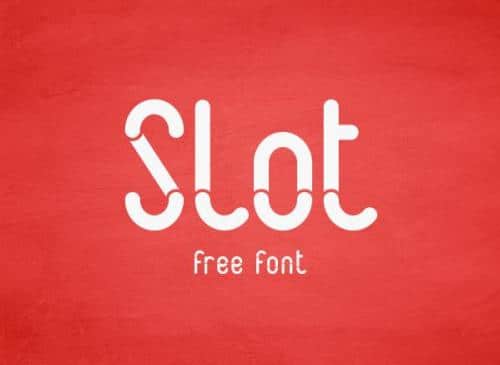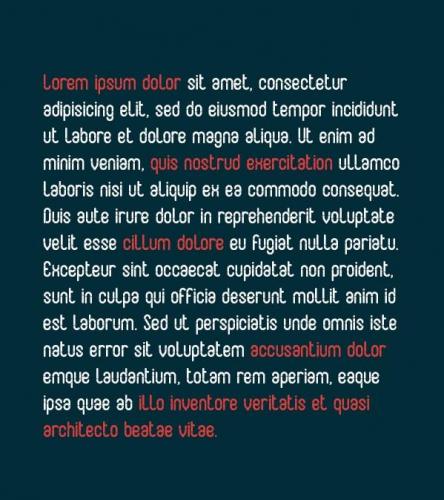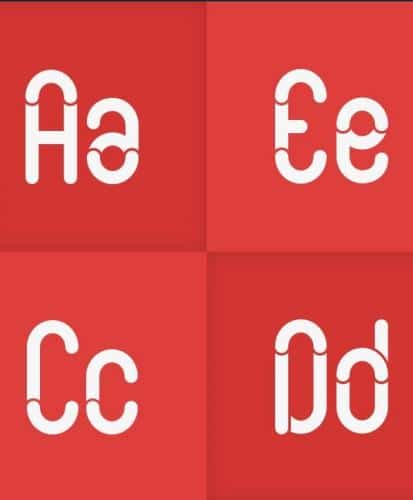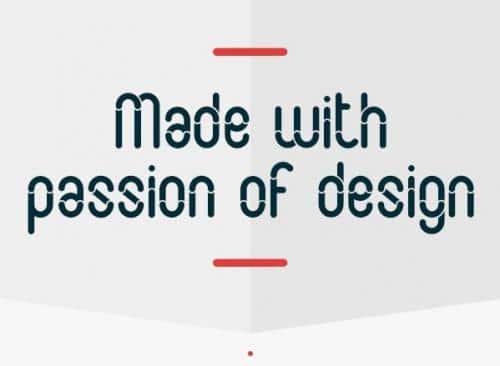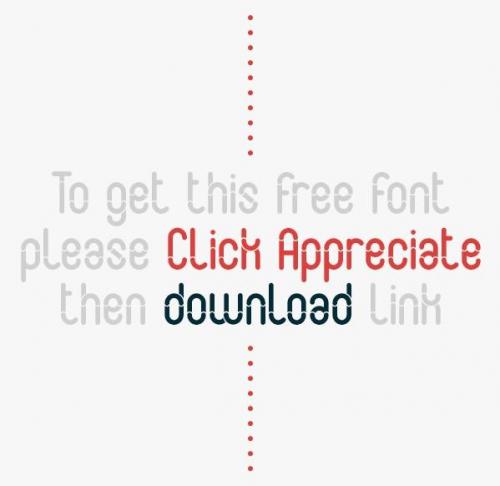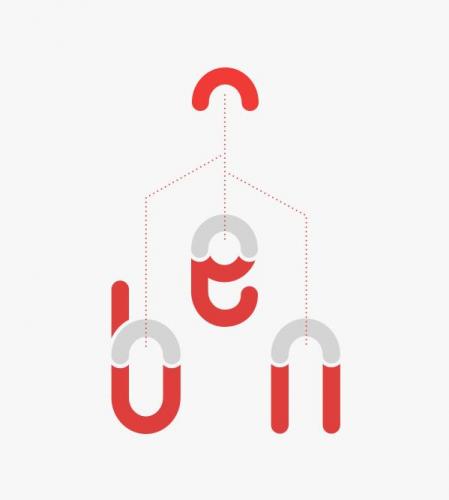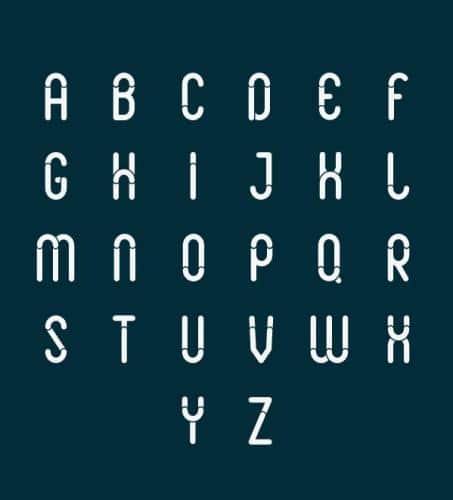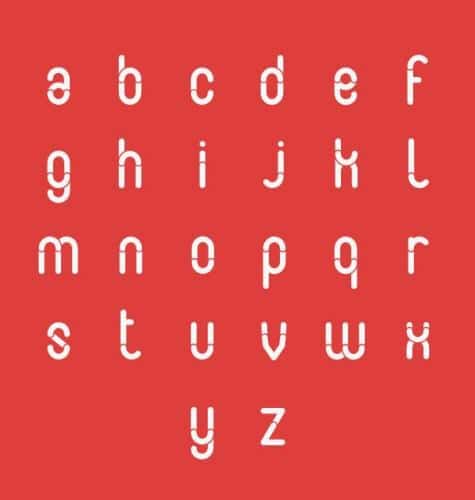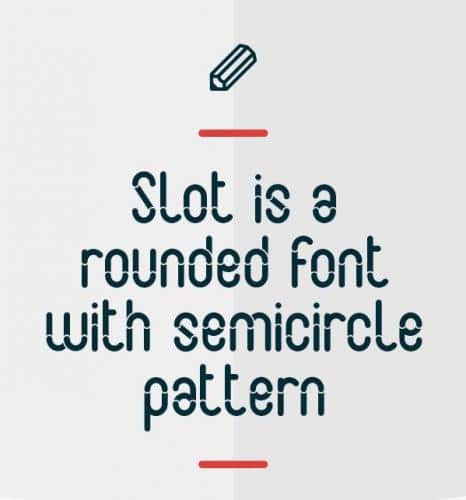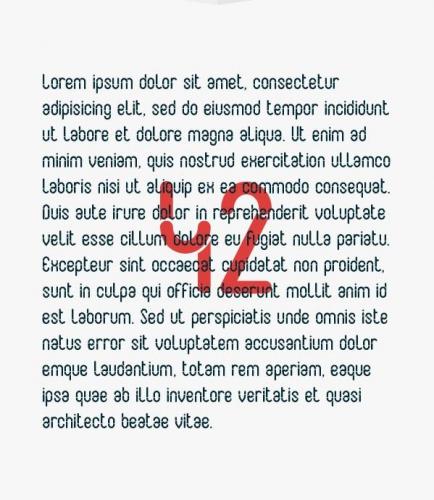
Slot Free Font – Designed by Adrien Coquet & Hugo Dath. Slot is a rounded font with a semicircle pattern. Slot is tottaly free both for personnal and commercial projects. However, please support this font by appreciate this project 🙂 Many thanks !Â